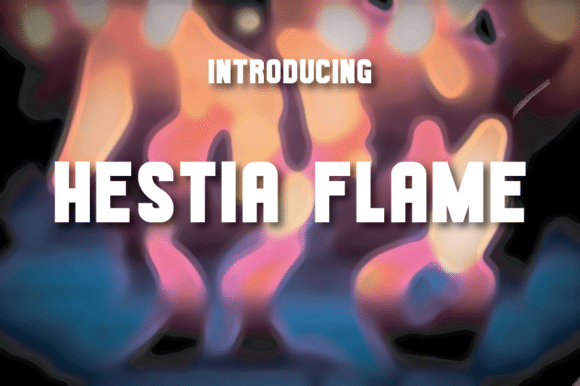
The Hestia Flame is a modern display font made for posters, ads, comics, and every other design which needs a playful touch.
- Designer: SushiHueDesign